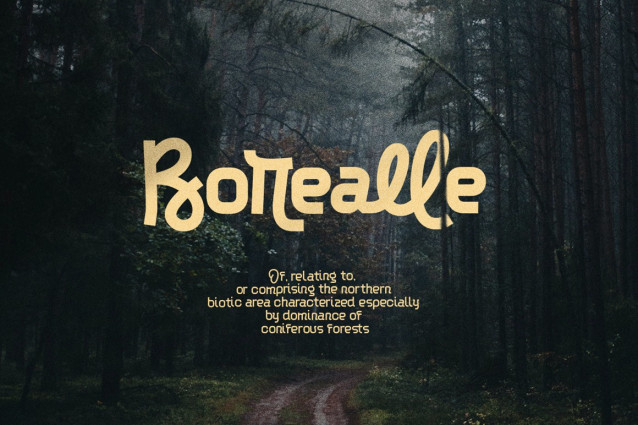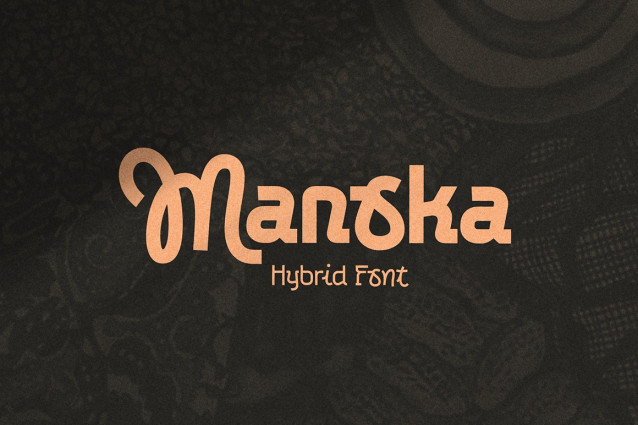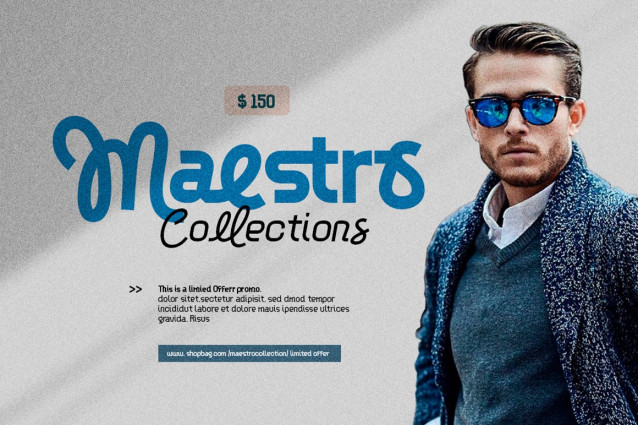
Manoka Font
Manoka Font – where tradition meets modernity in the world of typography. This versatile font effortlessly blends two distinct styles – the crisp, clean lines of sans-serif with the fluid elegance of script. Manoka offers a harmonious fusion of tradition and innovation, perfect for projects that demand both sophistication and contemporary flair. Its sleek sans-serif glyphs exude professionalism and clarity, ideal for conveying information with precision. Meanwhile, the graceful script alternates add a touch of warmth and personality, infusing your designs with a human touch.
Available in three distinct styles – regular, light, and italic – Manoka offers endless creative possibilities. Whether you’re crafting sleek corporate branding, elegant invitations, or eye-catching advertisements, this font is your go-to choice for making a lasting impression. Embrace the power of Manoka and elevate your designs to new heights of elegance and sophistication.”
Features:
• Basic Latin Glyphs
• Regular Light & Italic
• Uppercase and Lowercase Letters
• Alternates & Ligatures
• Numeral and Punctuation
• Punctuations & Currencies
• Multilingual Support